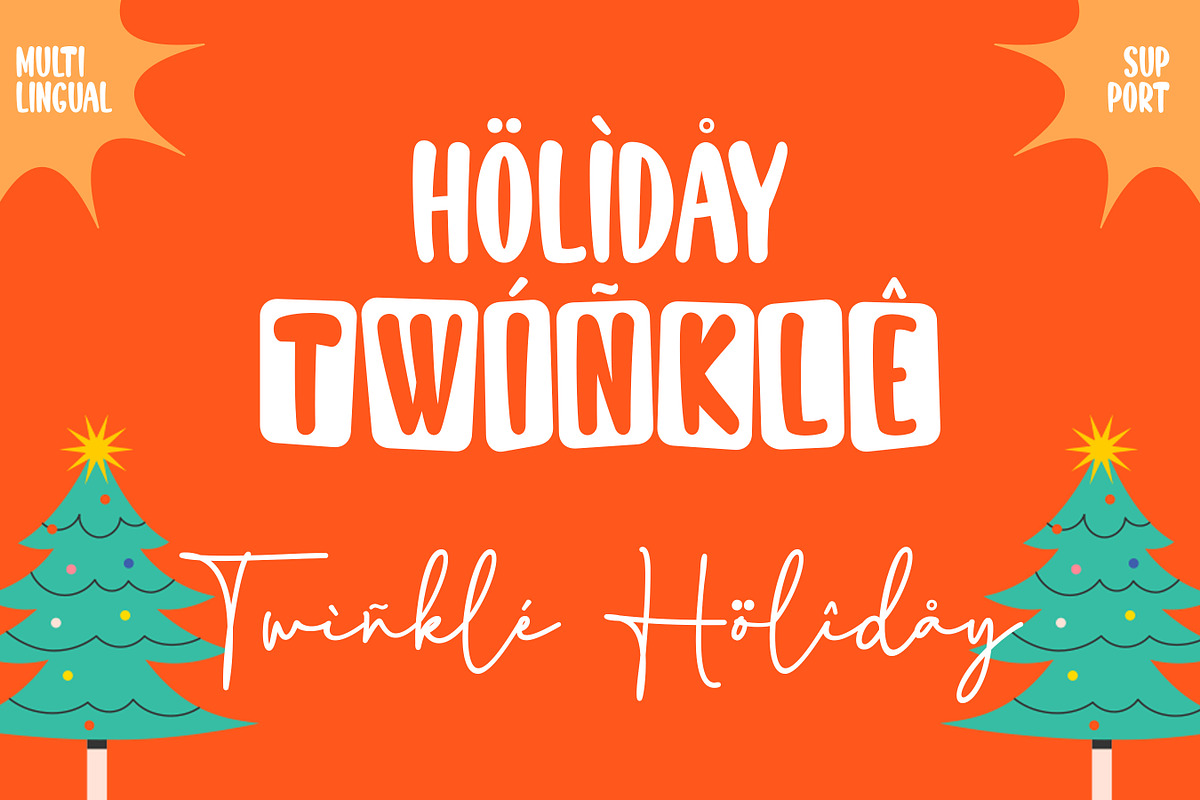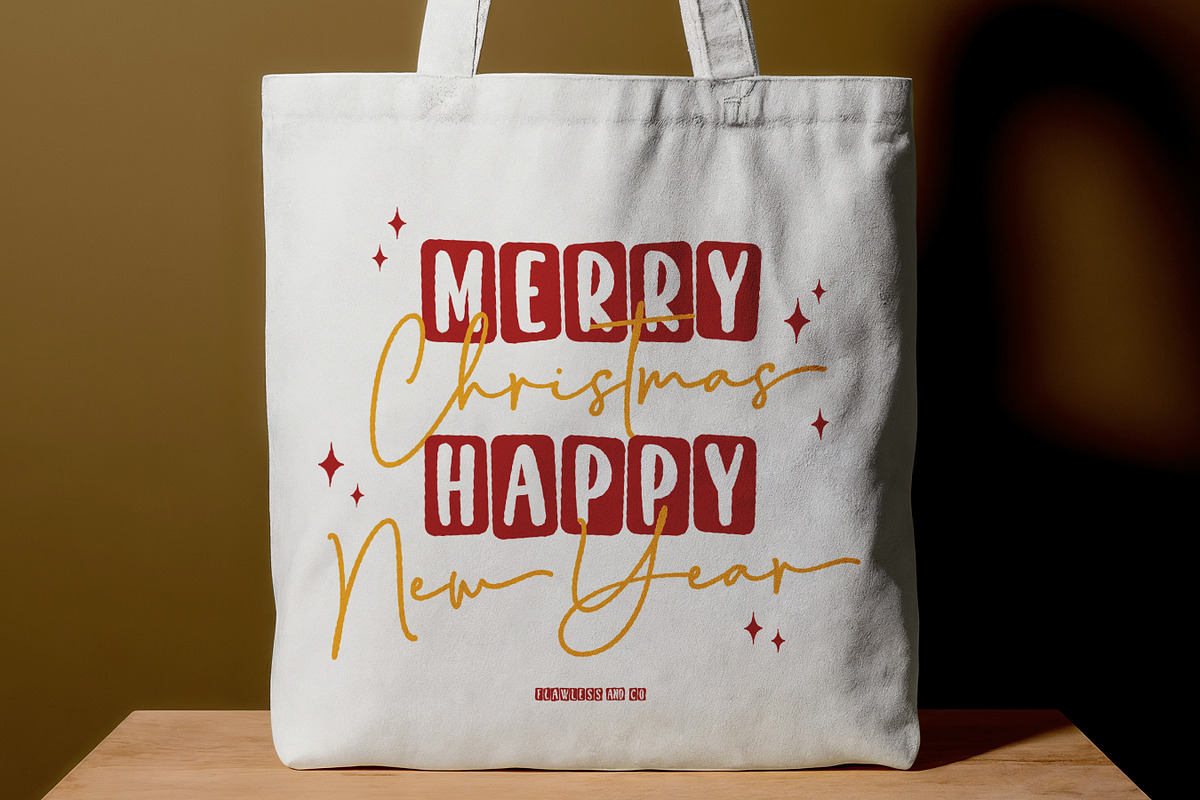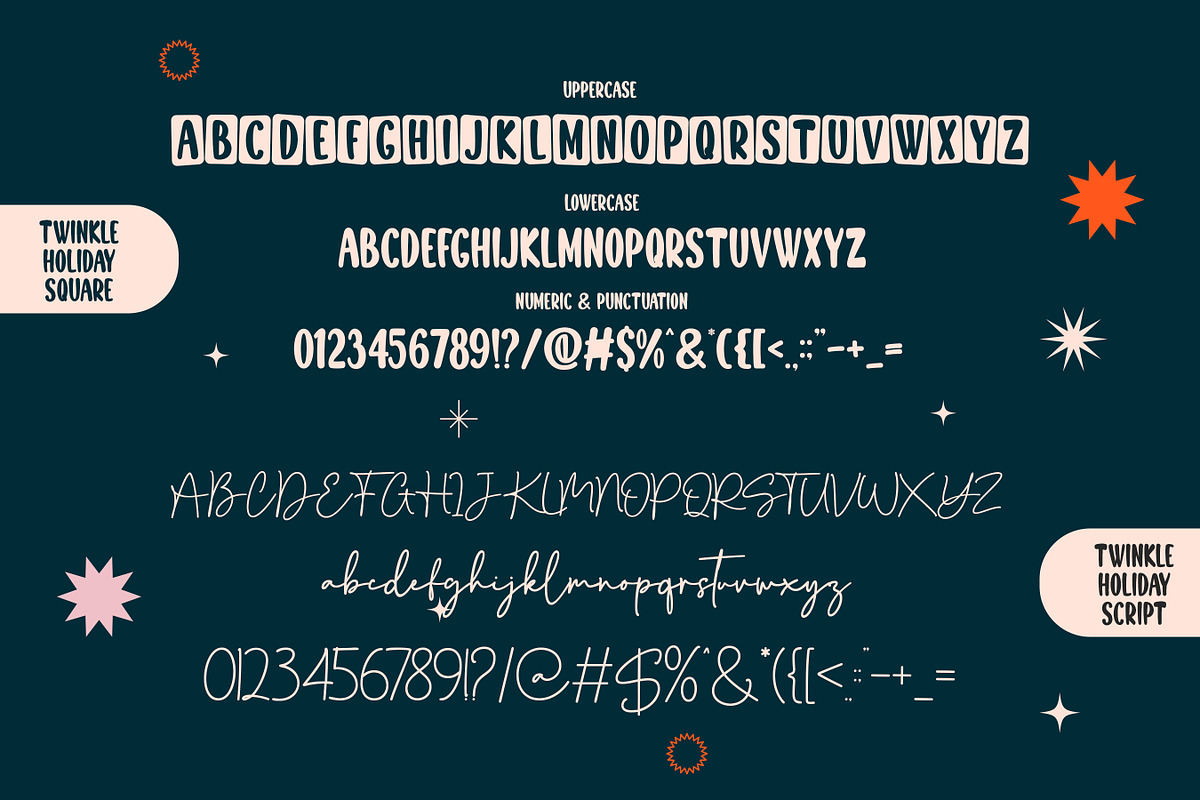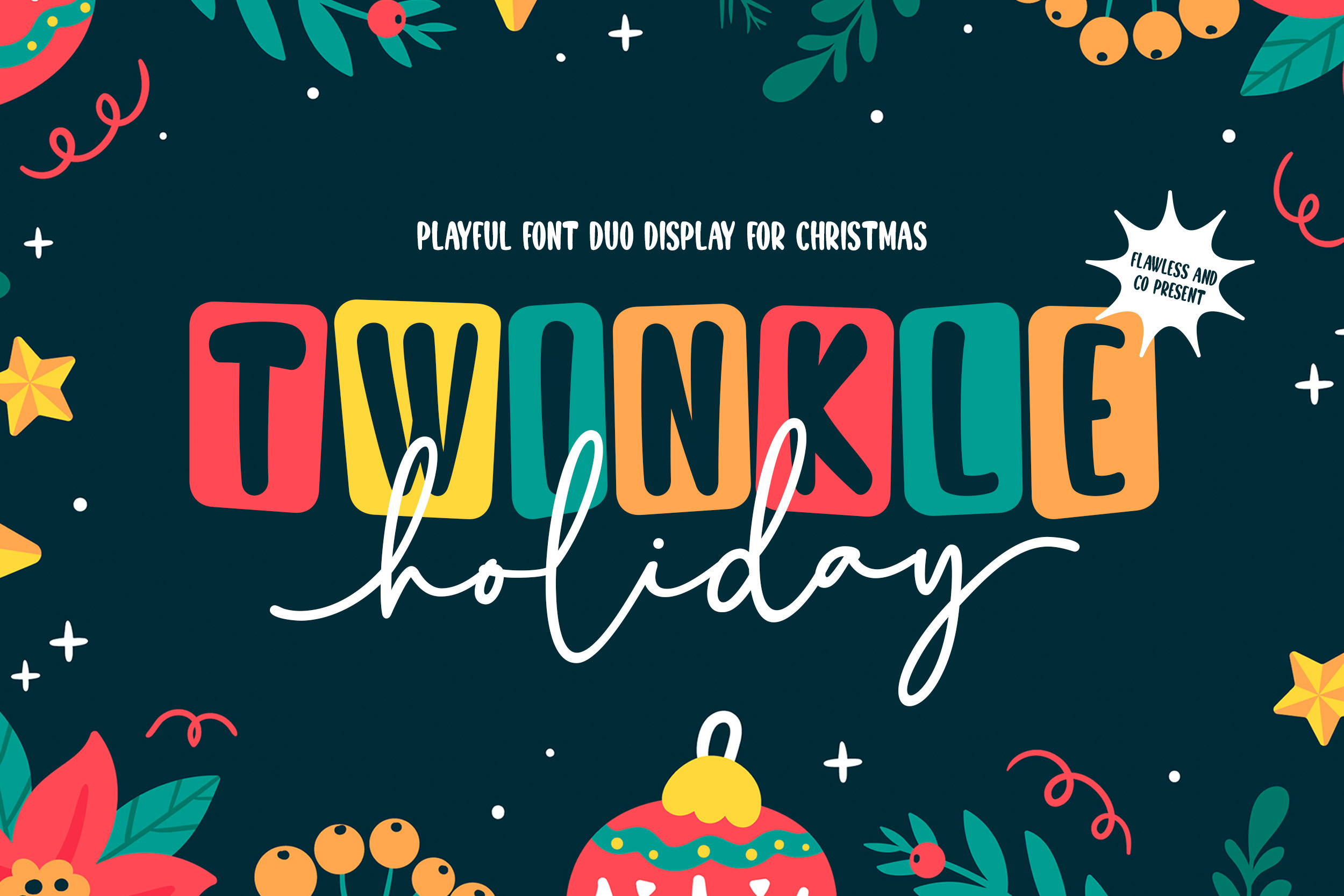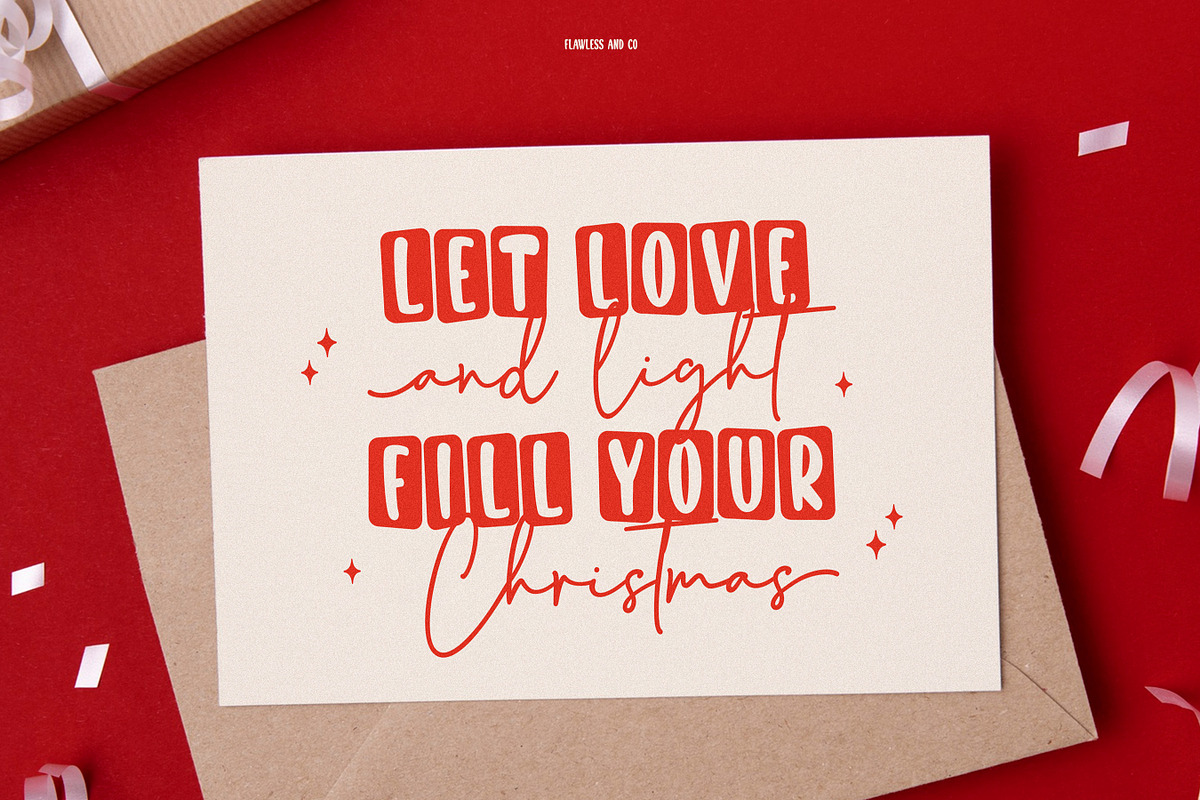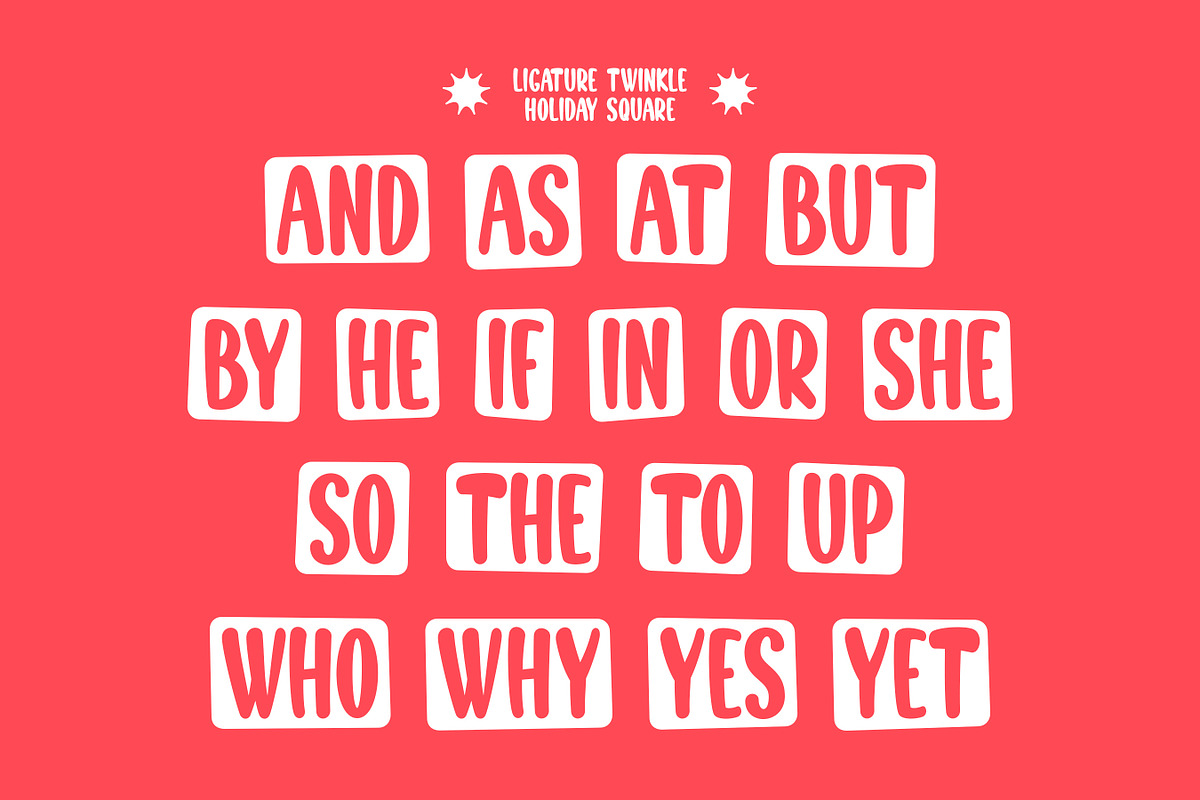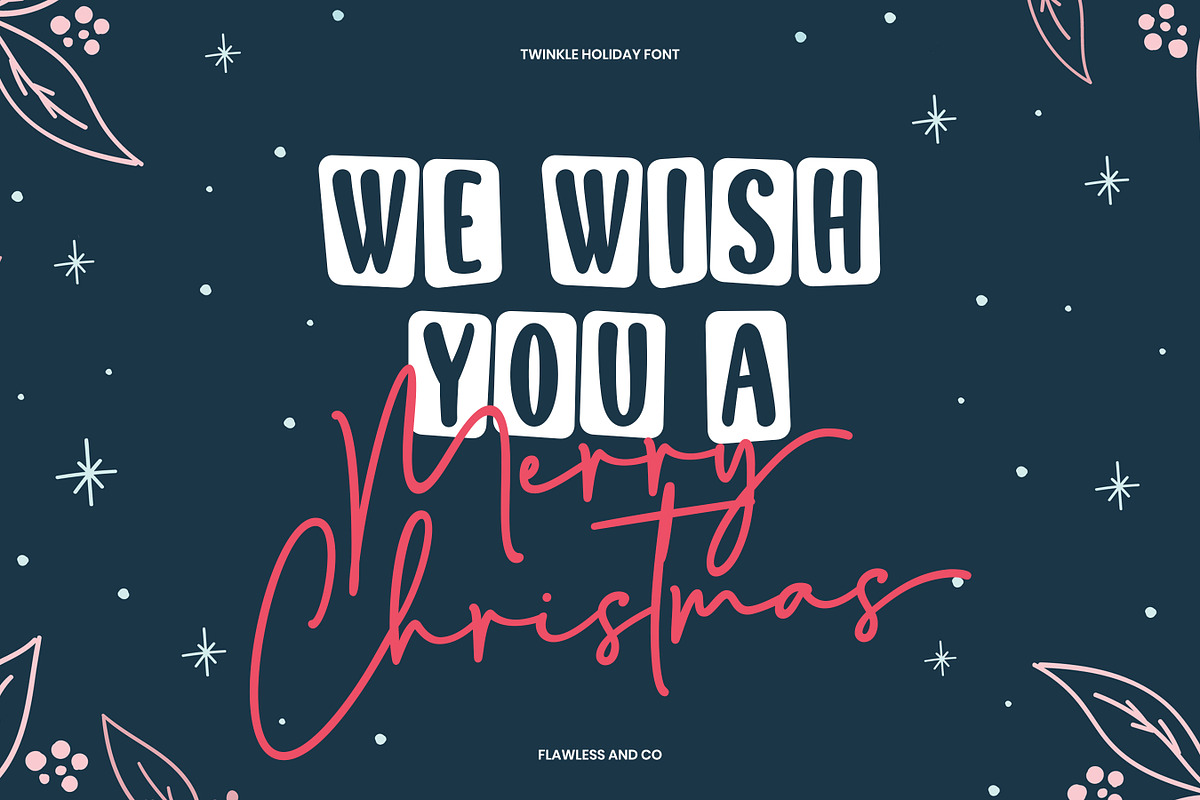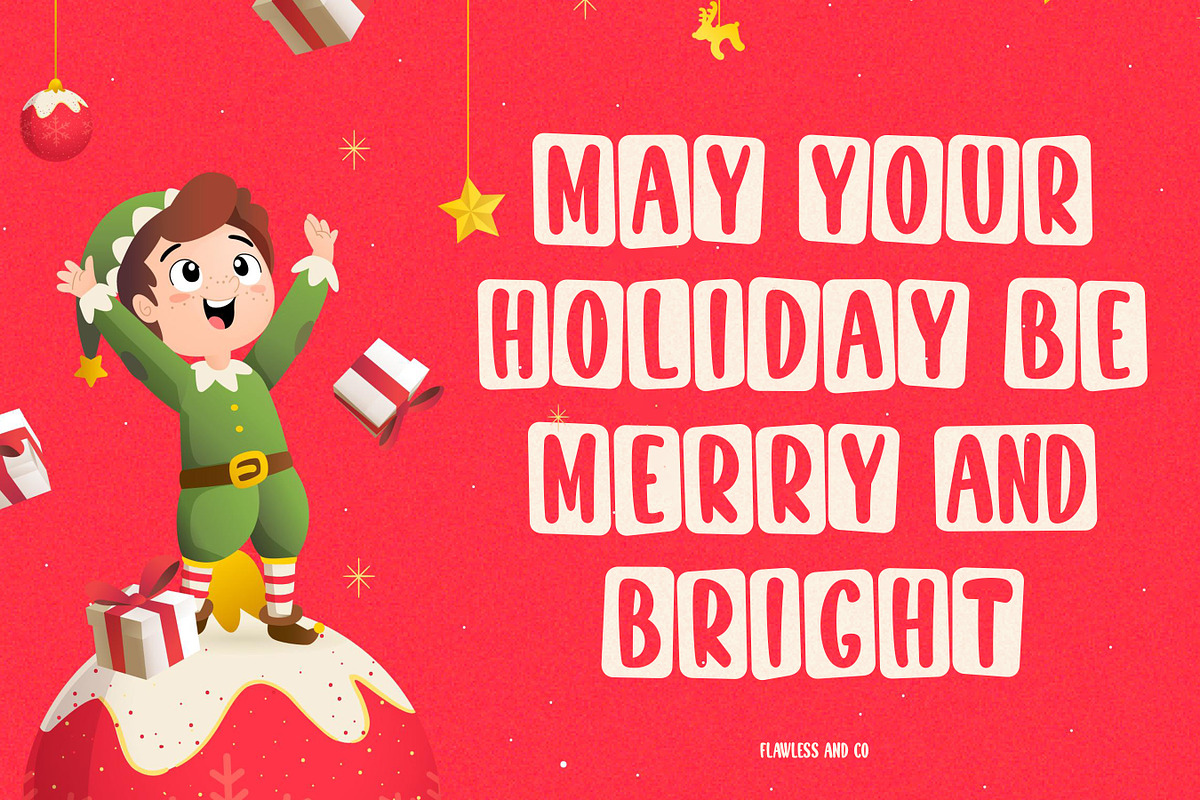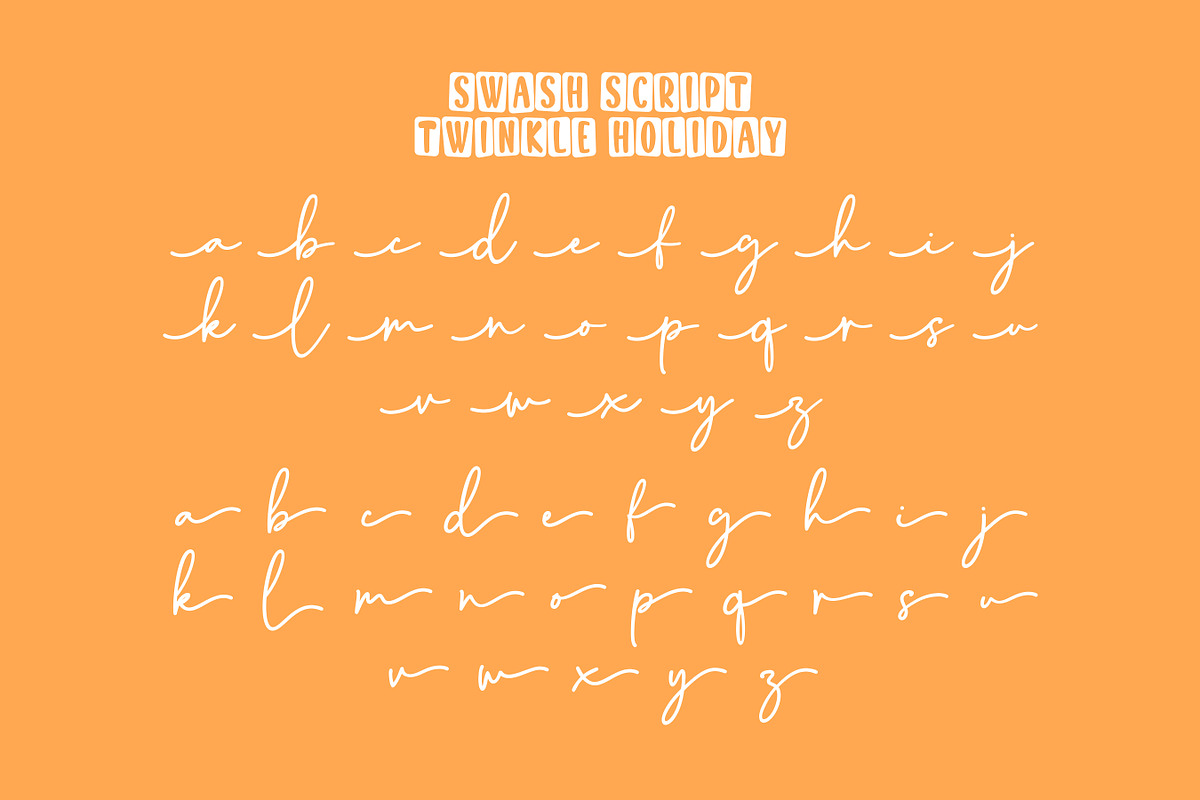
Twinkle - Duo Display Font
Twinkle - Display Font
Twinkle is a playful duo display font designed to bring joy, warmth, and festive charm to your designs. Featuring a fun combination of bold, rounded display letters paired with a smooth handwritten script, Twinkle creates a lively contrast that feels cheerful and friendly. Its colorful, whimsical character makes every word look more expressive and full of personality—perfect for capturing a happy holiday mood.
Who Should Use Twinkle?
Twinkle is perfect for designers, brand owners, and creatives who want to create fun, cheerful, and festive designs. It’s especially suitable for anyone working on Christmas or holiday projects, such as greeting cards, branding, packaging, social media content, posters, and event promotions. Twinkle is ideal for those who love playful typography and want their designs to feel warm, joyful, and full of personality.
A Must-Have Font for "Brand and Logo" Creators and Designers
Twinkle is a must-have font for brand and logo creators and designers who want to bring a fun, friendly, and memorable look to their work.
Suitable for:
- Branding and logo design with a playful and cheerful style
- Christmas and holiday-themed designs
- Greeting cards and invitations
- Kids projects and children’s books
- Packaging with a fun and friendly personality
- Posters and event promotions
- Social media graphics and creative content
- Stickers, merchandise, and decorative designs